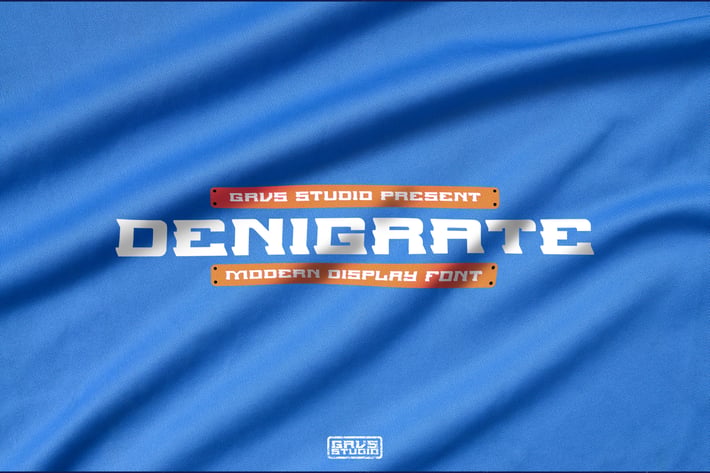
Denigrate Display Font
GRVS Denigrate Display Font is our new item that is suitable for your team logo, or community logo with a Modern and Dynamic theme.
Great for Logo, Sticker, Jersey, Invitation Card, Brochures, etc.